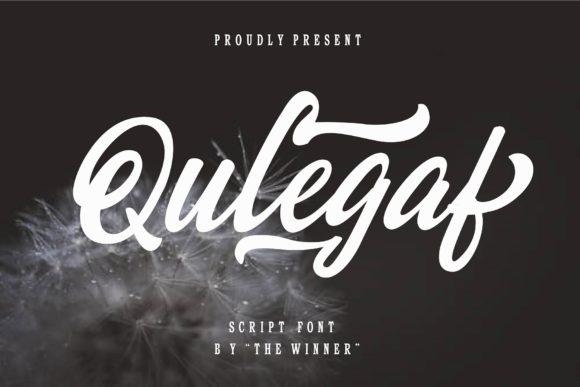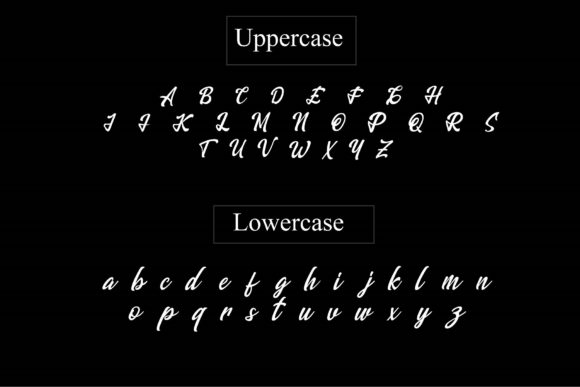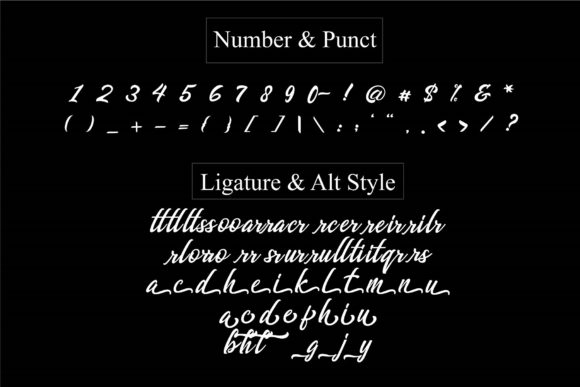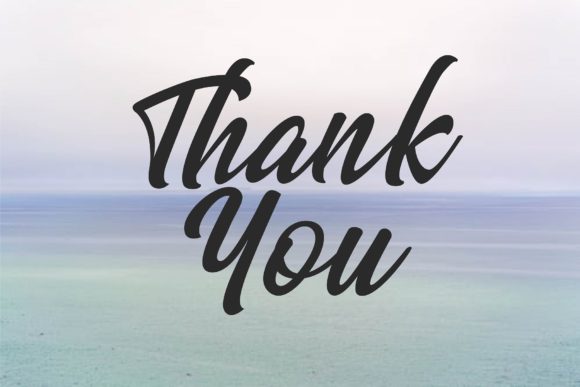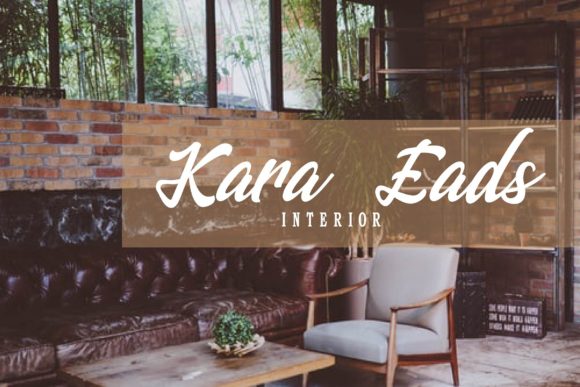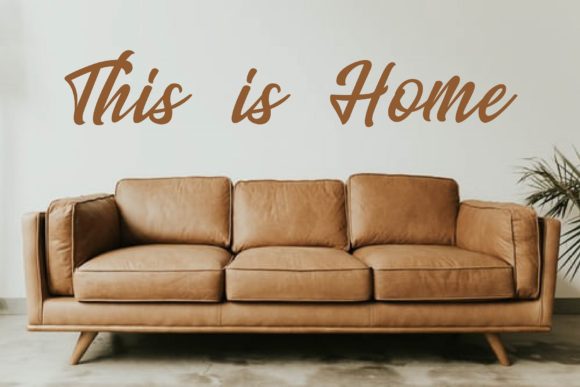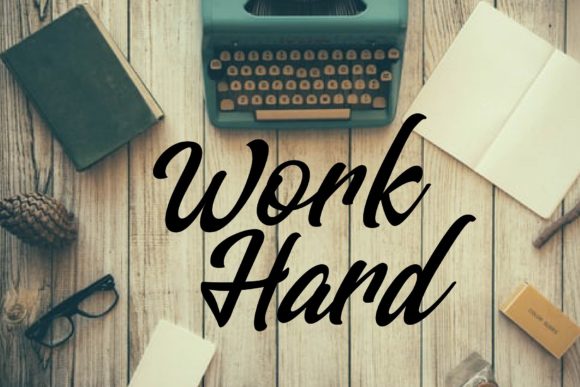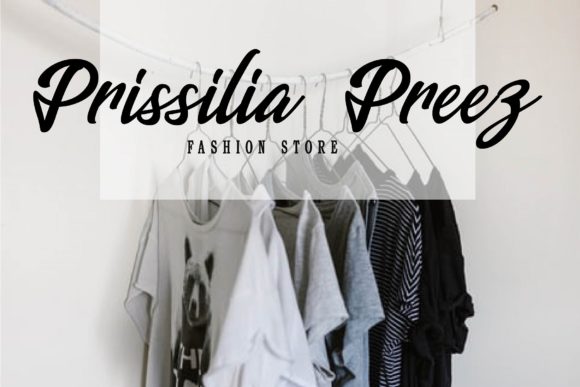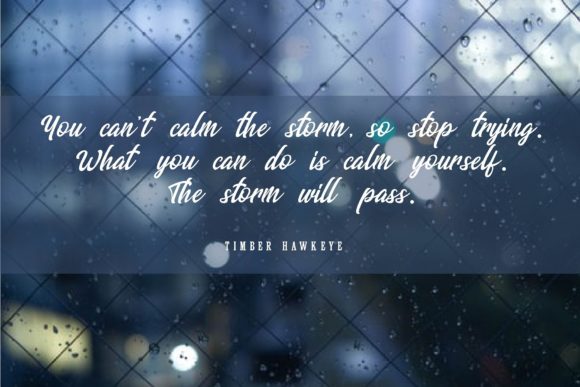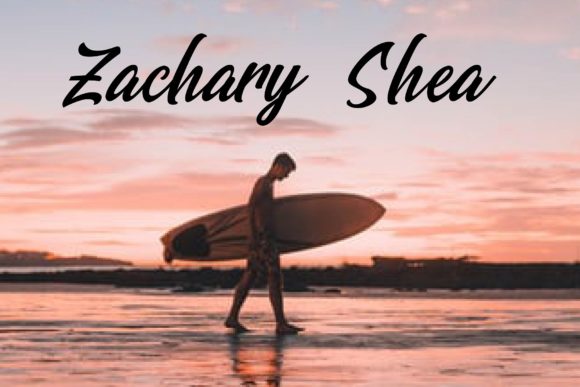
Qulegaf Font
About Qulegaf Font
The Qulegaf font download brings you a beautifully crafted paint brushed script font designed to add a unique, artistic flair to your creative projects. This font captures the essence of hand-painted brush strokes, giving your designs a natural and authentic look. Whether you’re working on wedding invitations, branding materials, or digital artwork, Qulegaf can effortlessly elevate your work with its organic and expressive style.
Qulegaf blends casual elegance with excellent readability, making it an ideal choice for a variety of uses. When you download this font, you gain access to a versatile tool that fits perfectly within any designer’s toolkit, from beginners to professionals.
Features of Qulegaf Font
Qulegaf boasts a full character set that includes uppercase and lowercase letters, numbers, punctuation, and special symbols. The font’s smooth ligatures allow for fluid connections between letters, enhancing the handwritten effect. These design choices ensure that your text flows naturally and beautifully, whether it’s a headline, logo, or body text.
The painted brush style makes Qulegaf especially suitable for projects needing a personal, artistic touch. It is perfect for branding, social media graphics, packaging design, greeting cards, and much more. The font’s balance of creativity and clarity allows it to shine in both digital and print formats.
How to Use Qulegaf Font
If you’re designing a logo or brand identity, Qulegaf can give your work an approachable and handcrafted look that stands out in a crowded marketplace. It is also well-suited for invitations and social media posts that require a touch of elegance and flair.
Final Thoughts on Qulegaf Font Download